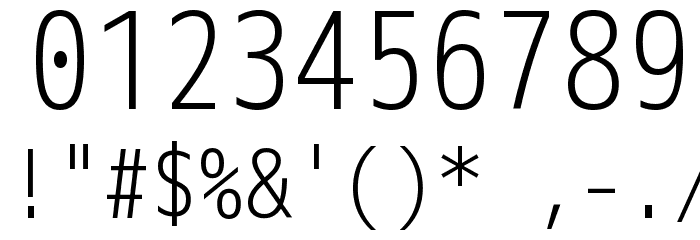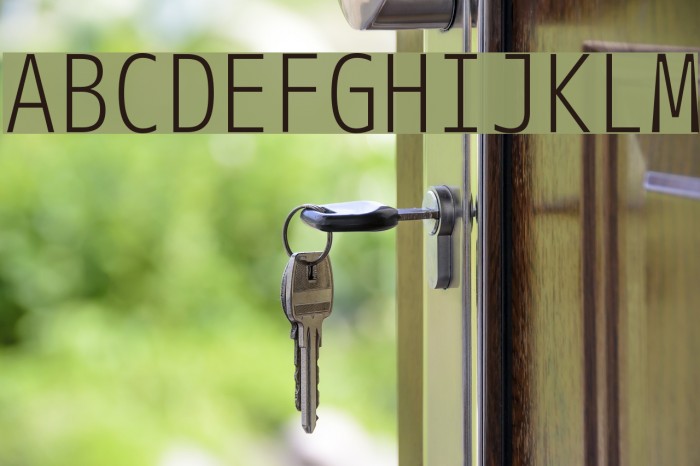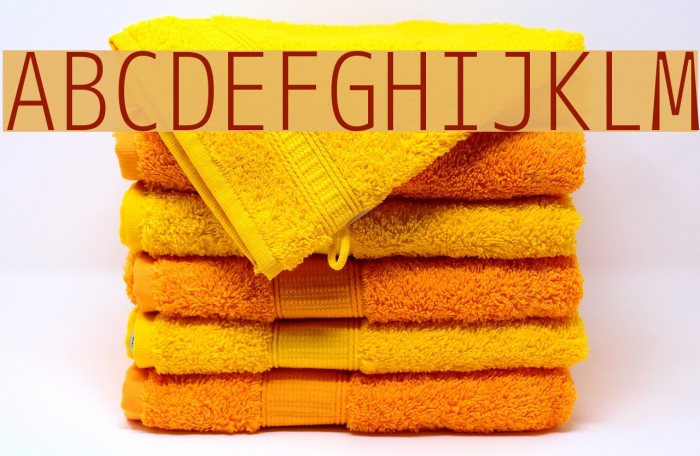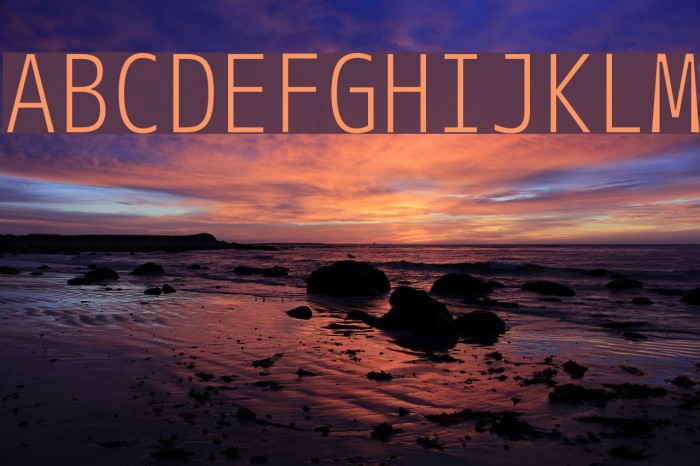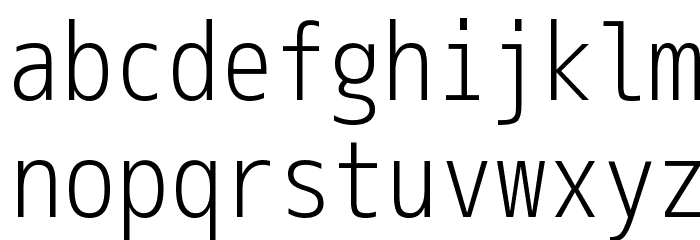
M+ 2m light Font
This font exhibits a clean and modern sans-serif style with a geometric structure. The characters are evenly spaced, providing a balanced and harmonious appearance. The uppercase letters are tall and slightly narrow, while the lowercase letters maintain a consistent height, contributing to a uniform look. The numerals are clear and legible, matching the overall aesthetic of the font. Special characters are well-defined, ensuring versatility in various applications. The font's simplicity and clarity make it suitable for both digital and print media.
A modern, geometric sans-serif font with clean lines and balanced spacing.